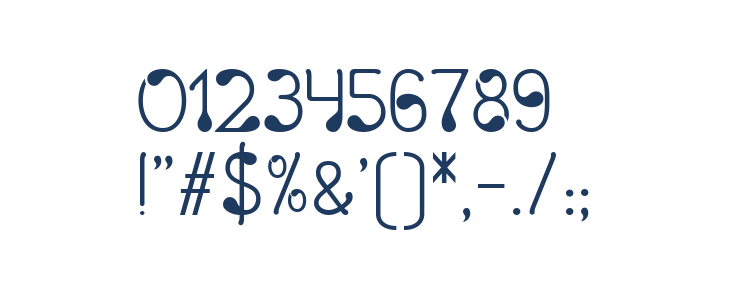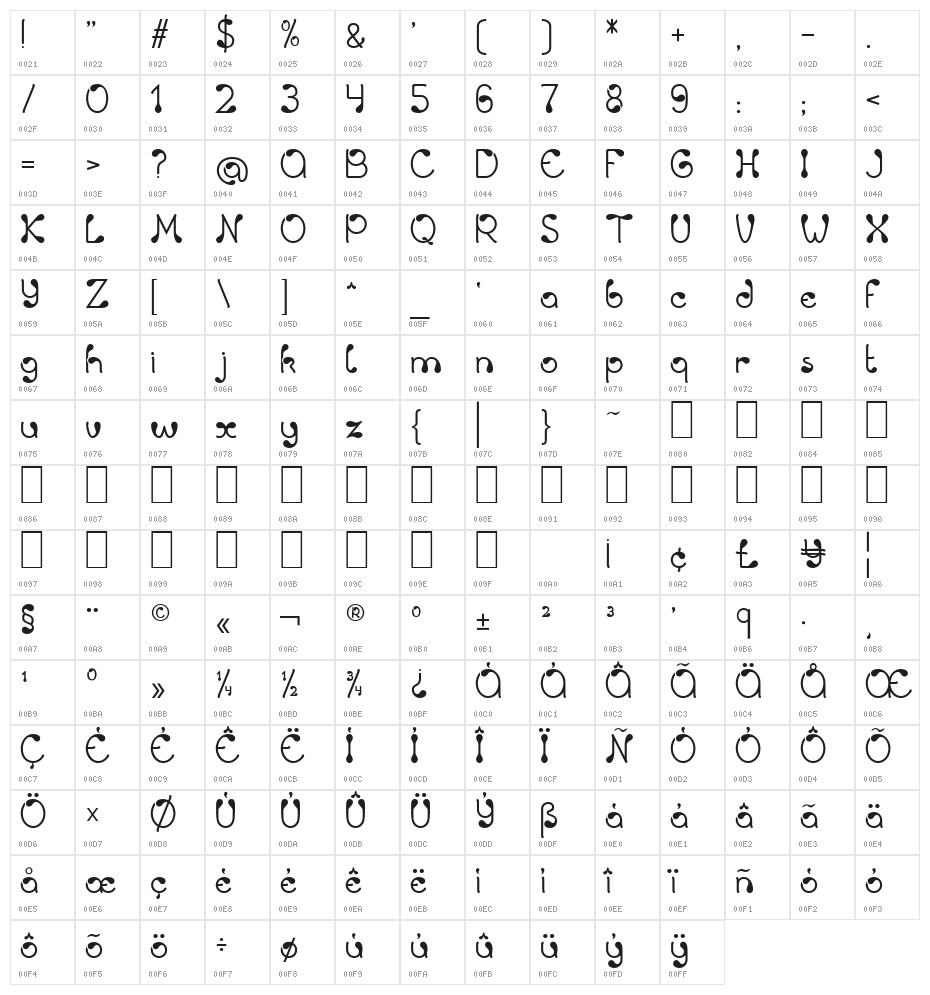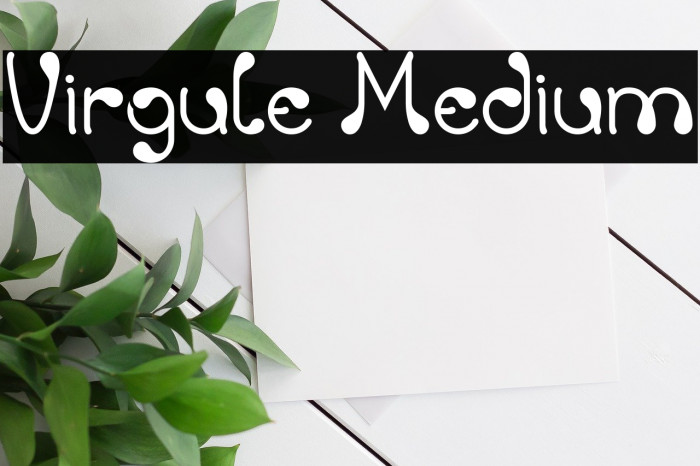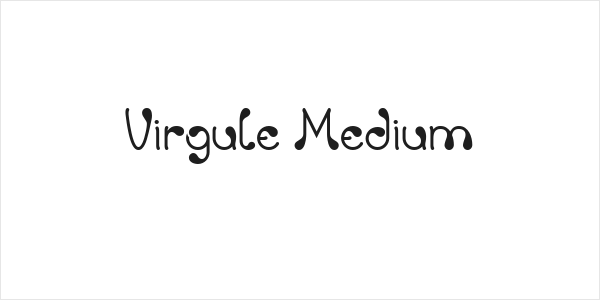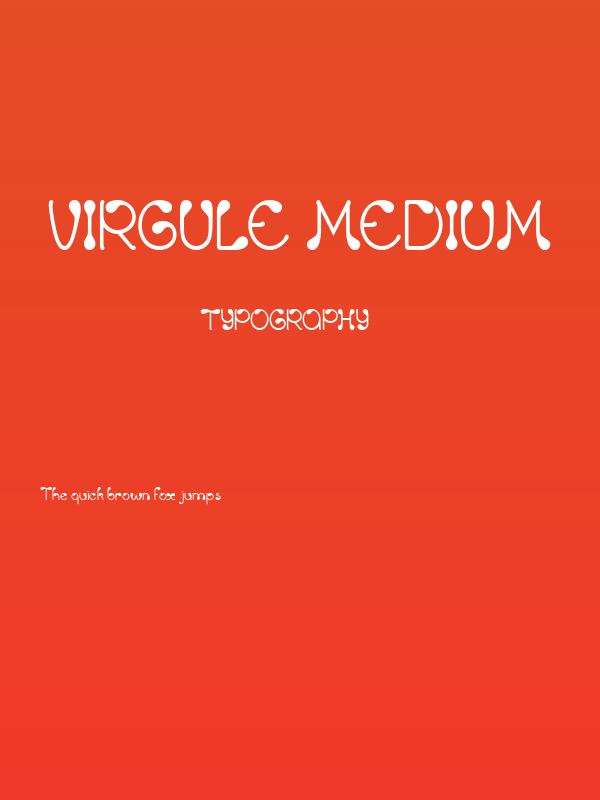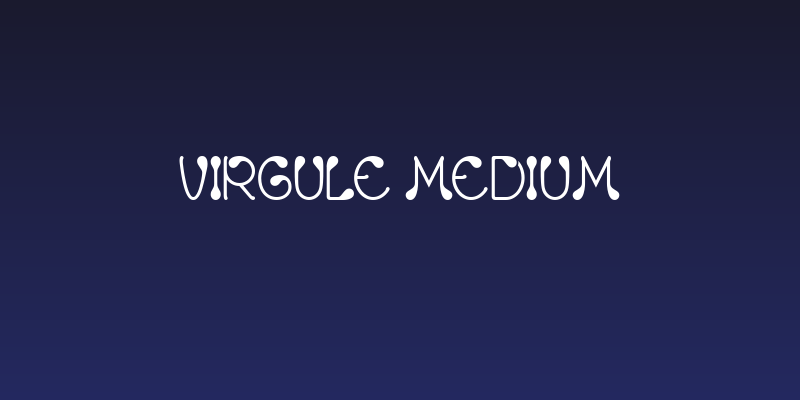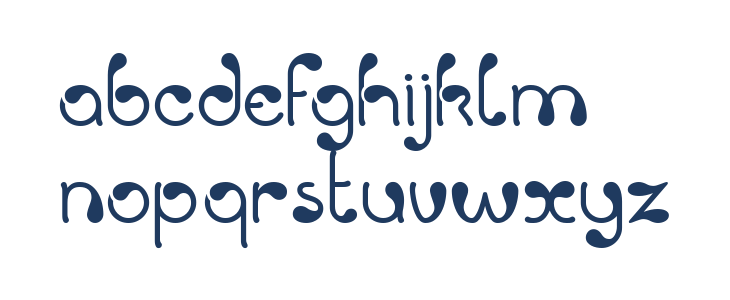
Virgule Medium Font
Virgule Medium Description
This font features a unique and playful design with rounded and bulbous terminals, giving it a whimsical and modern appearance. The characters are crafted with a consistent stroke width, providing a smooth and cohesive look. The uppercase and lowercase letters maintain a uniform style, while the numbers and special characters complement the overall aesthetic. Its distinctiveness makes it suitable for creative and artistic projects, where a touch of personality is desired. The font's design is both eye-catching and legible, making it versatile for various applications.
Proposed ProjectsIdeal for creative projects, children's books, playful branding, and artistic posters.